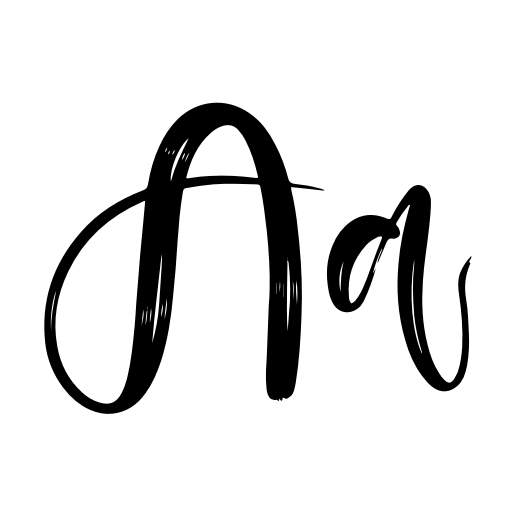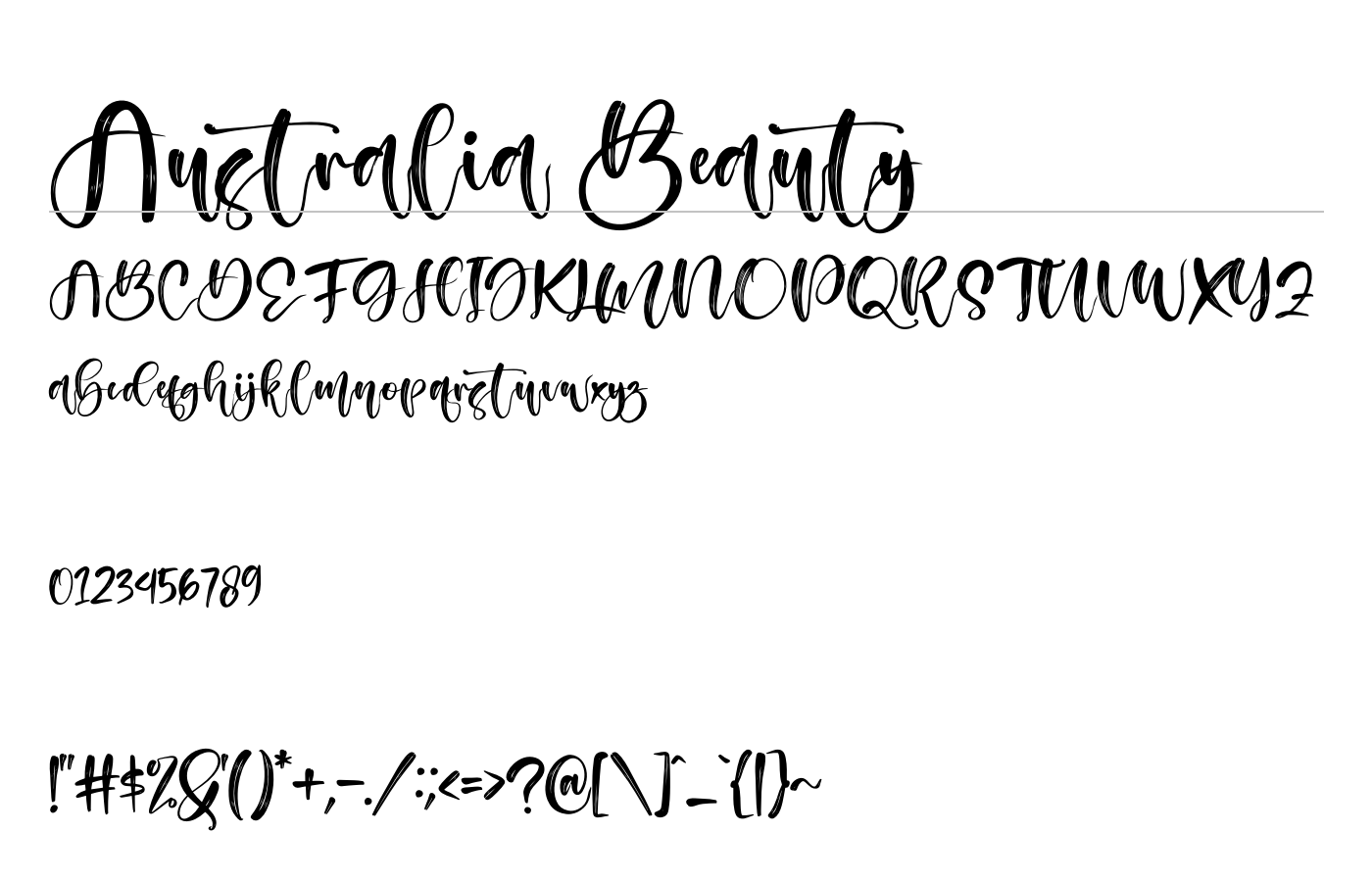
Australia Beauty Font is a lively and elegant script typeface with a bold, hand-drawn feel that combines thick and thin strokes to create a dynamic, casual, yet stylish look. Its flowing letterforms and playful curves make it perfect for creative branding, invitations, and expressive headlines where a personal, artistic touch is desired. This font works well in fashion, beauty, and lifestyle contexts where charm and personality are key.
Australia Beauty Font